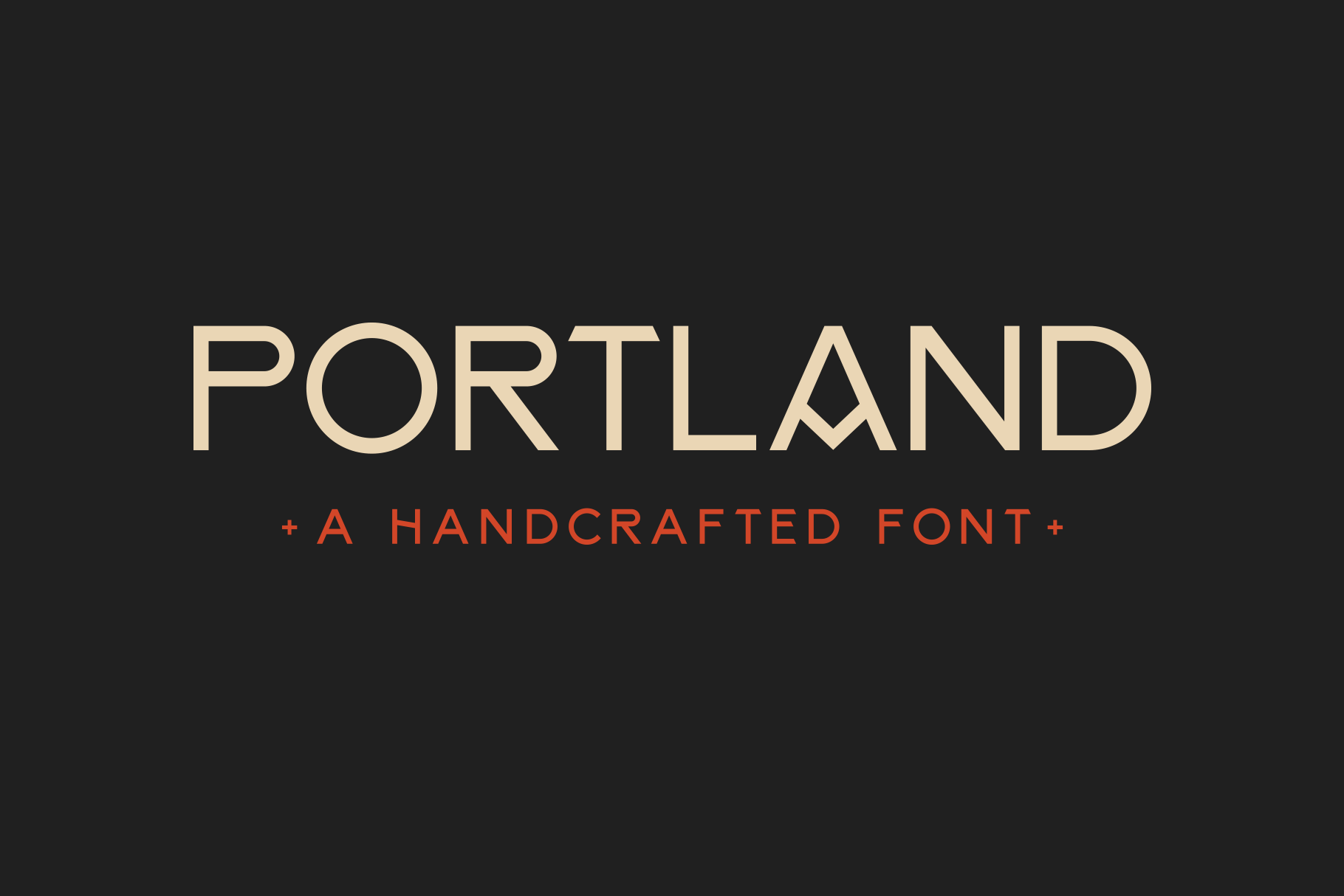
PORTLAND — Handcrafted Vintage Font
PORTLAND PRO, A Handcrafted Vintage Font.
Portland is a clean, versatile sans-serif font inspired by vintage type. Portland for the perfect font for logos, display graphics, wedding invitations, or any project that you want to stand out.
I put a lot of hard-work and effort into making the letterforms of Portland work harmoniously together.